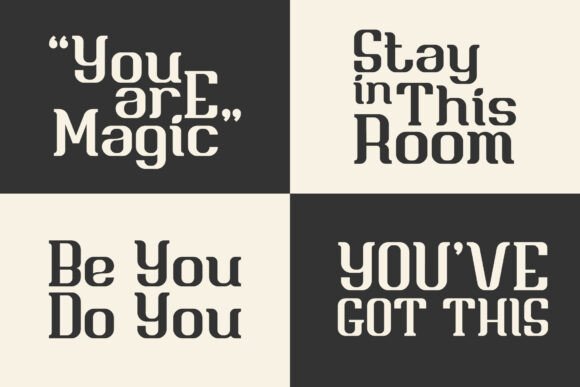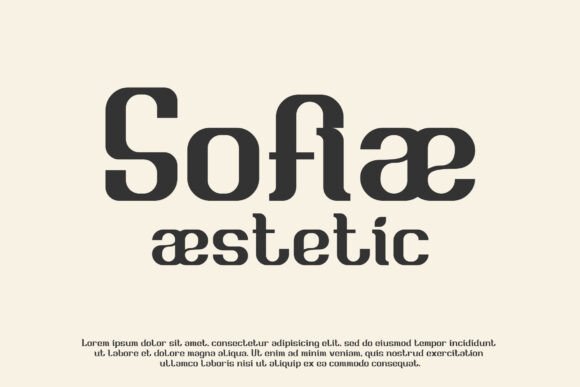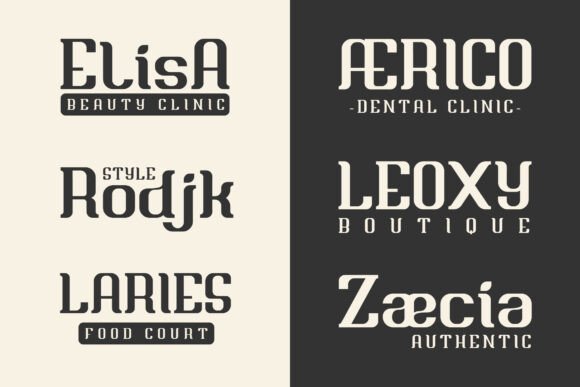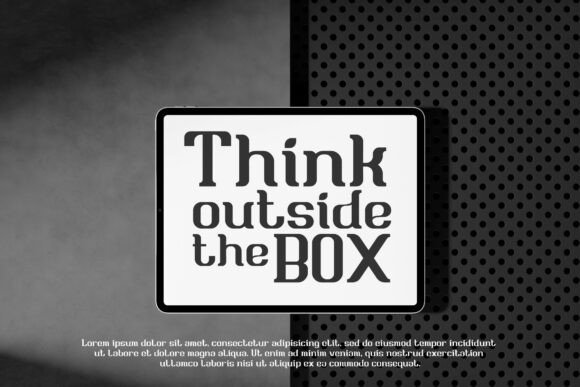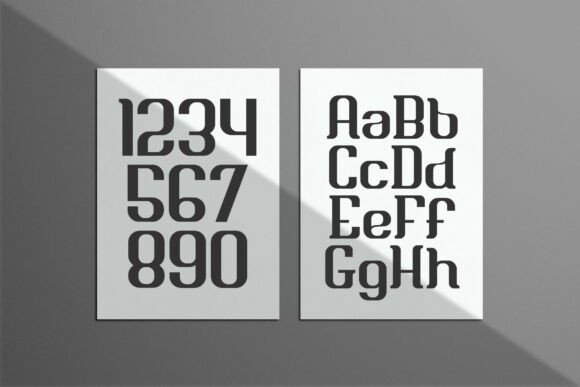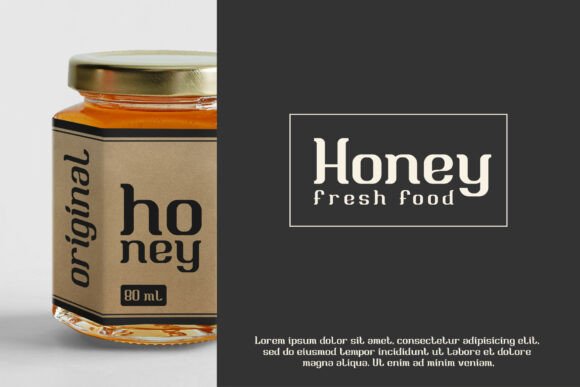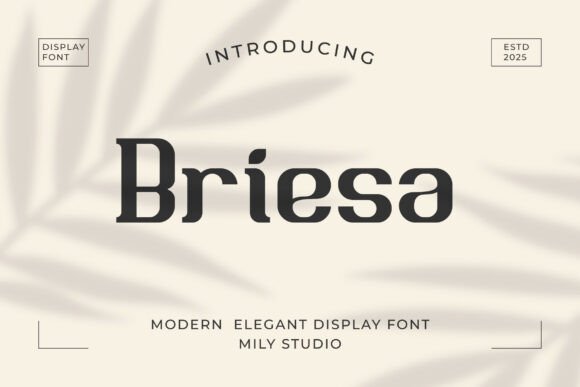
Briesa Font: The Perfect Blend of Casual and Neat for Your Design Projects
In the world of typography, finding the right font can make all the difference in bringing your design projects to life. If you’re on the hunt for a font that exudes warmth, clarity, and a touch of casual elegance, look no further than Briesa Font. Designed to make your projects stand out with its unique blend of neatness and approachability, Briesa is quickly becoming a favorite among designers and crafters alike.
The Essence of Briesa Font
Briesa is a casual and neat display font that has been carefully crafted to bring a sense of warmth and clarity to your designs. Its clean structure and approachable style make it the perfect choice for a wide range of projects, from branding and headlines to everyday designs. Whether you’re working on a professional project or a personal craft, Briesa offers the perfect blend of readability and charm.
Key Features of Briesa Font
- Clean Structure: Briesa’s clean and well-defined letterforms ensure that your messages are conveyed with clarity and precision.
- Approachable Style: The font’s casual elegance makes it feel approachable and inviting, perfect for creating a connection with your audience.
- Balanced Letterforms: Briesa’s balanced design offers excellent readability, making it easy for your audience to engage with your content.
- Charming Aesthetic: The font’s unique charm adds a touch of personality to your designs, making them stand out from the crowd.
Why Choose Briesa Font?
So, why should you choose Briesa Font for your design projects? Here are just a few compelling reasons:
- Versatility: Briesa’s versatility makes it suitable for a wide range of projects, from professional branding to personal crafts.
- Readability: The font’s excellent readability ensures that your messages are conveyed clearly and effectively.
- Emotional Connection: Briesa’s charming aesthetic helps create an emotional connection with your audience, making your designs more engaging and memorable.
- Ease of Use: The font’s clean structure and balanced design make it easy to use, even for designers and crafters with limited typography experience.
Briesa Font is an excellent choice for designers and crafters looking to add a touch of warmth and personality to their projects. Whether you’re working on:
- Branding: Use Briesa to create a unique and memorable brand identity that resonates with your audience.
- Headlines: Add a touch of elegance and sophistication to your headlines with Briesa’s clean and approachable design.
- Everyday Designs: Bring a sense of warmth and charm to your everyday designs, from social media graphics to craft projects.
In conclusion, Briesa Font is a versatile and charming display font that is perfect for designers and crafters looking to add a touch of warmth and personality to their projects. With its clean structure, approachable style, and balanced letterforms, Briesa offers the perfect blend of readability and charm. Whether you’re working on a professional project or a personal craft, Briesa is sure to become your go-to font for bringing your designs to life.